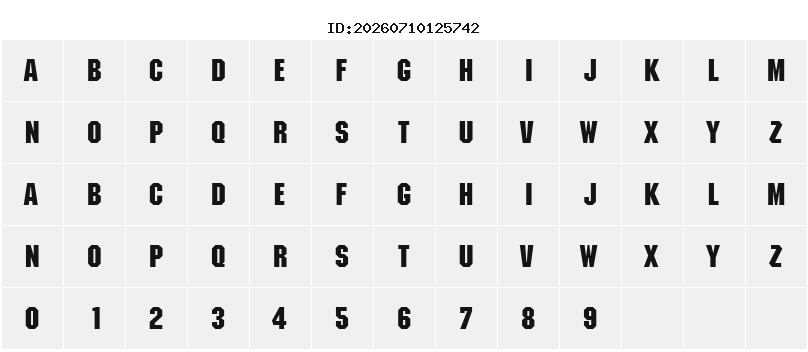
FederationHull Preview
About FederationHull.ttf
FederationHull.ttf is a modern, elegant sans-serif font designed for ultimate readability and visual harmony. Perfect for branding, headlines, web design, and print materials.